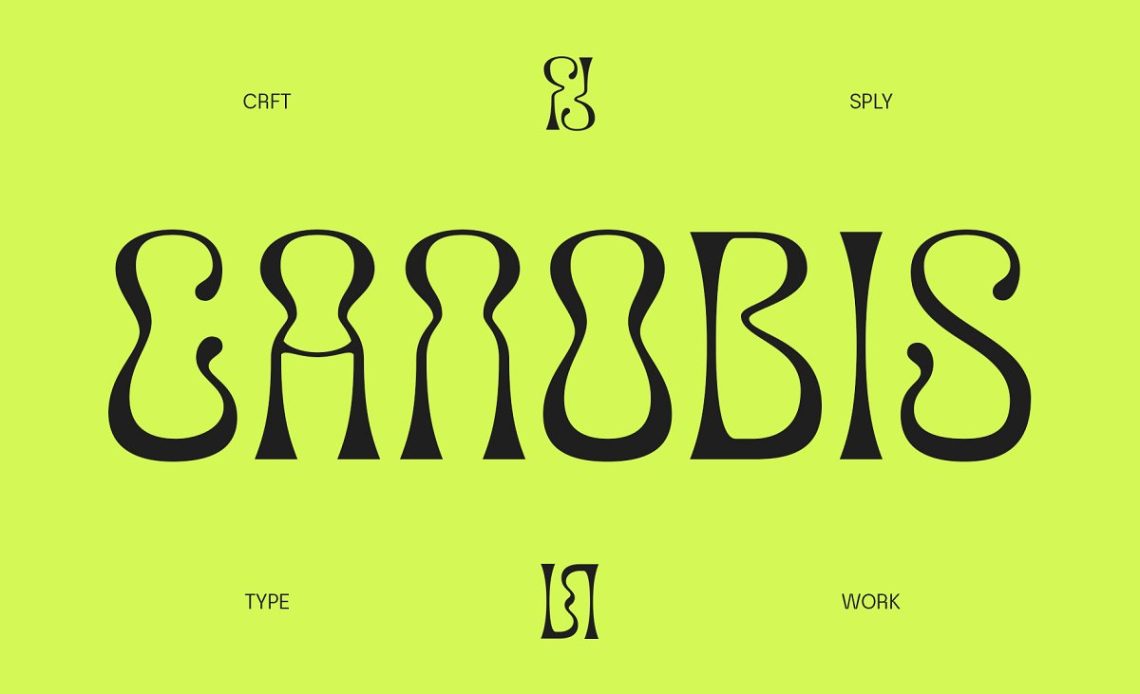
Introducing Canobis - Psychedelic Typeface, the best font for vinyl Cricut! Created by Trio Nazzar Saputra, this font family is a perfect choice for your design projects. Canobis is a typeface that will give your projects a unique and catchy flow, making them vibing and alive. Whether you're making a greeting card, package design, brand identity, craft design, or any DIY project, Canobis will make your art/design project look pretty and trendy.